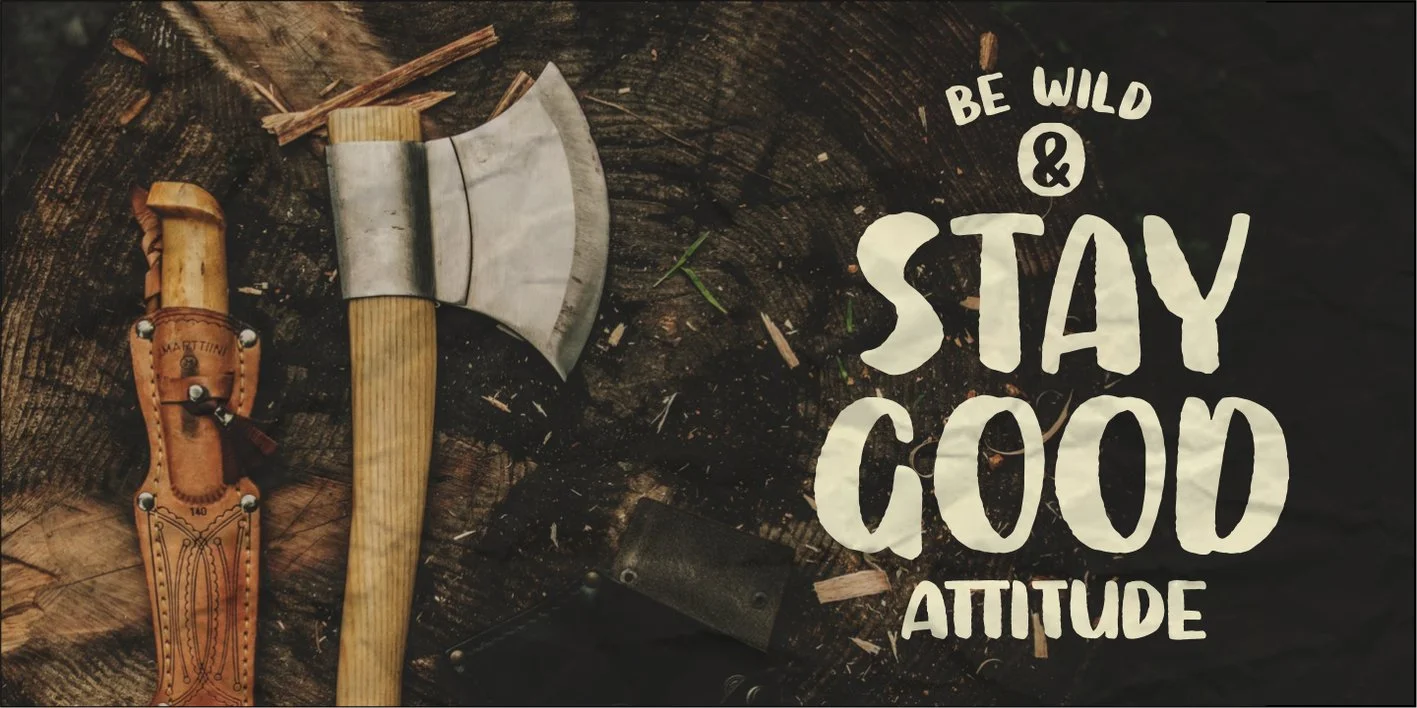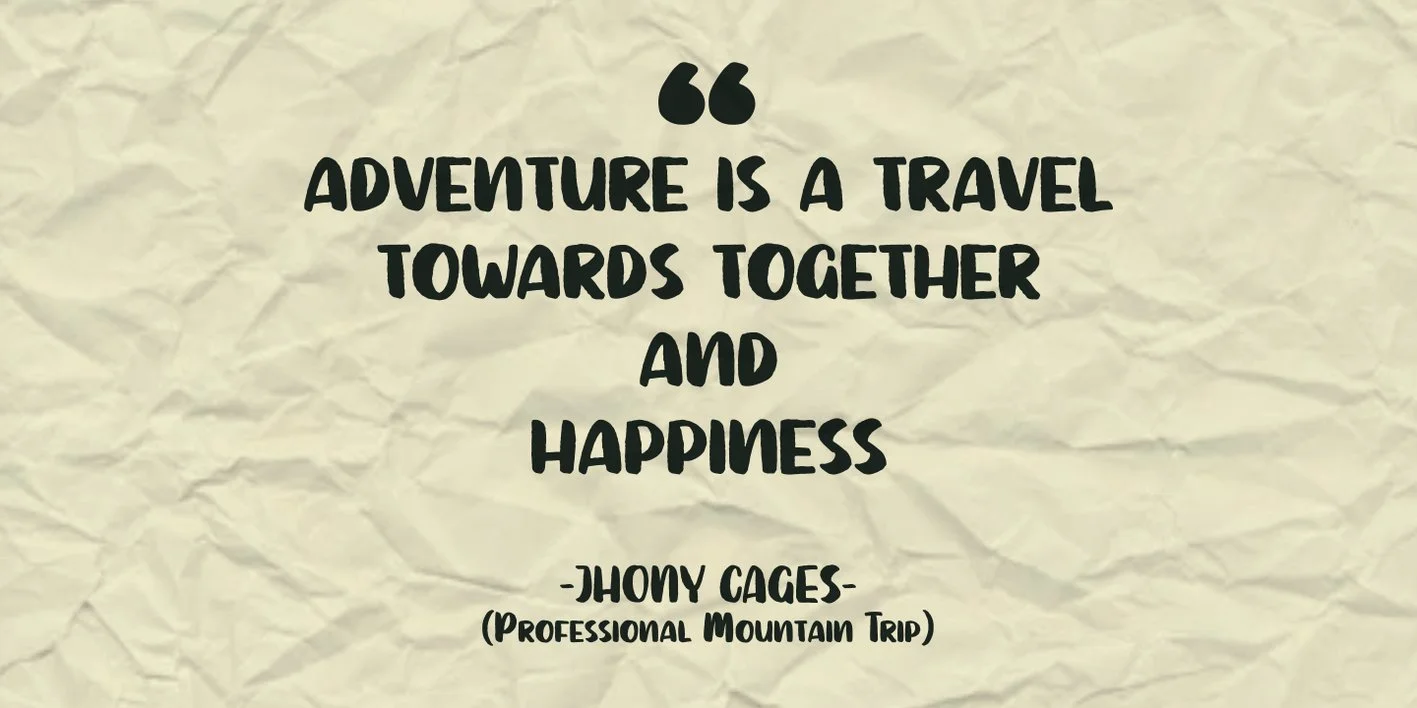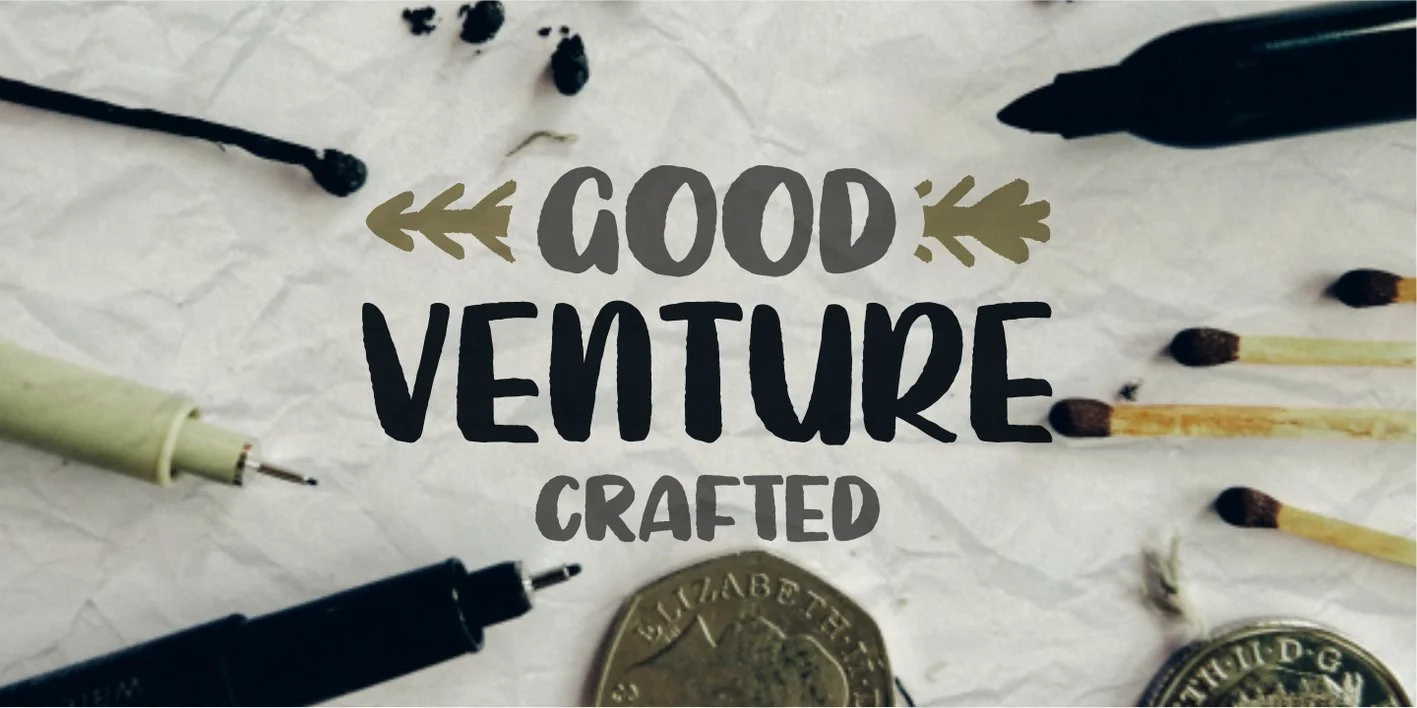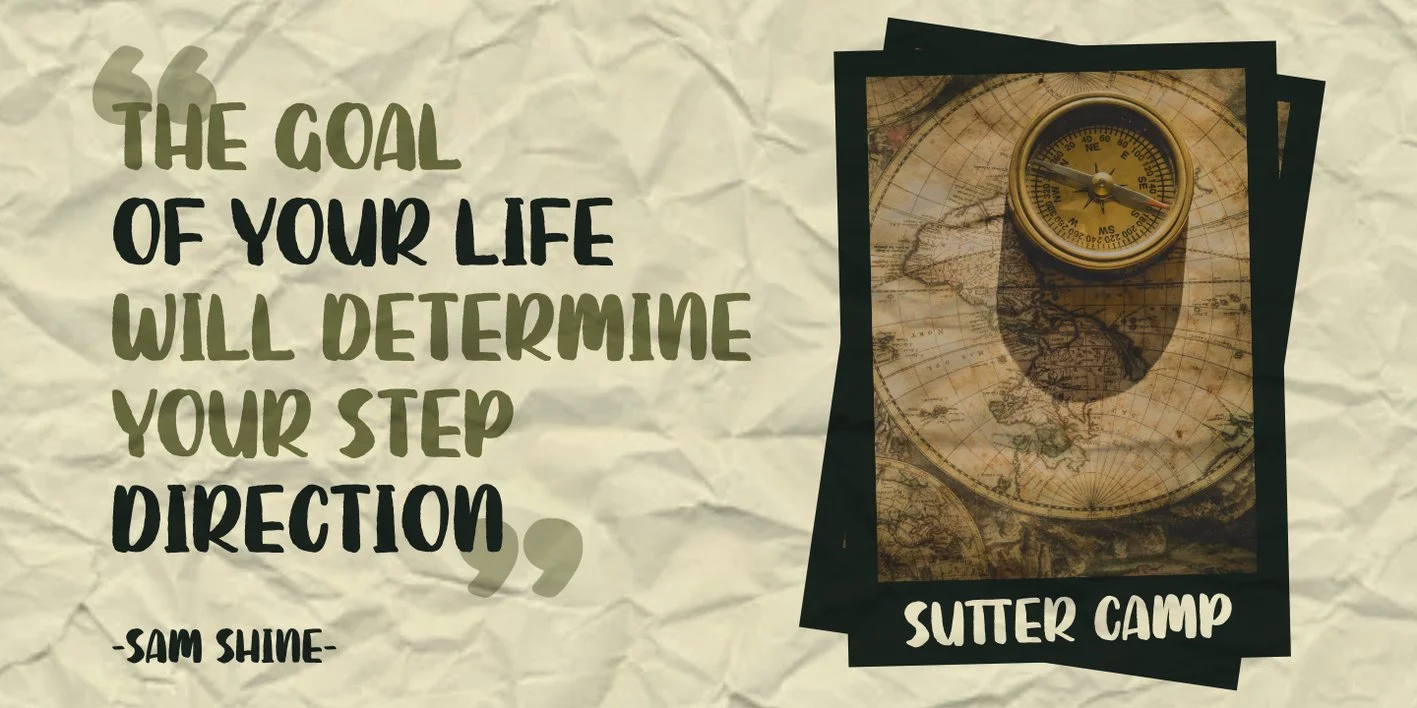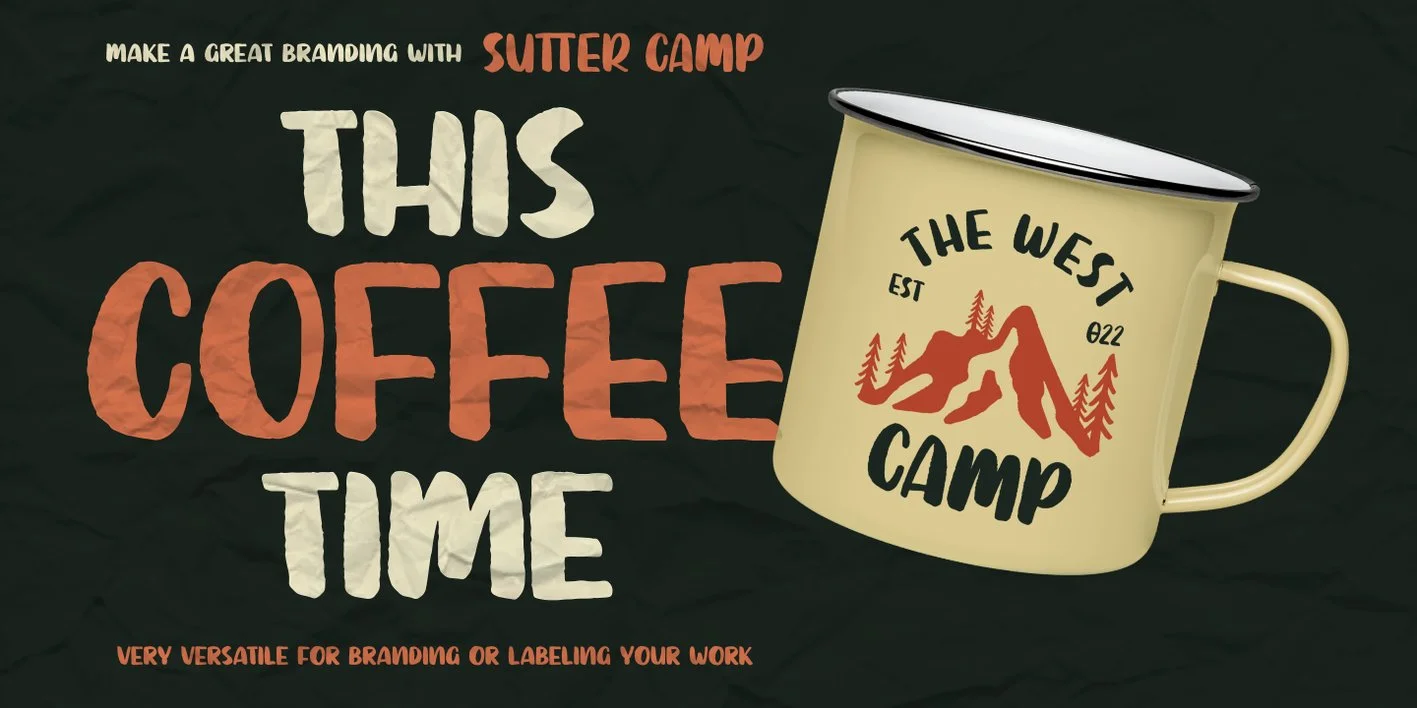
Sutter Camp Font
Typography shapes perception at a subconscious level. Sutter Camp leverages the kind of restraint that lets content lead to make every composition feel considered. The typeface brings a versatile sensibility to a broad range of creative disciplines, with a confident voice that adapts to diverse briefs that holds up whether the work is print-first or screen-first.
In practice, Sutter Camp proves particularly effective for web design, packaging design, advertising campaigns, brand identity systems, annual reports. Designers reaching for it find that the type decisions feel resolved rather than laboured — a useful quality when client timelines are tight.
The range of applications extends to poster creation, logo design, environmental graphics, product labels. That breadth is deliberate: the proportions and spacing were stress-tested across a wide range of mock briefs before the typeface was finalised.
At smaller sizes the design retains its character without becoming cluttered. This resilience across scales makes Sutter Camp equally suitable for a business card and a billboard — a useful property when assets must scale across a campaign.
In-house creative teams at consumer brands find Sutter Camp a reliable choice for projects that demand both personality and restraint. The design avoids the self-conscious quirkiness that dates quickly, settling instead for considered distinctiveness that holds up over time.